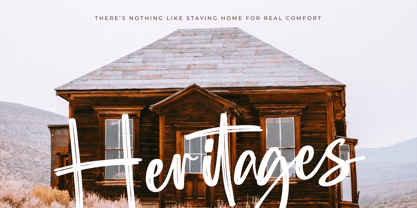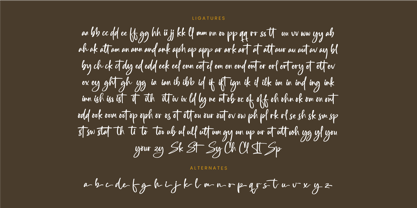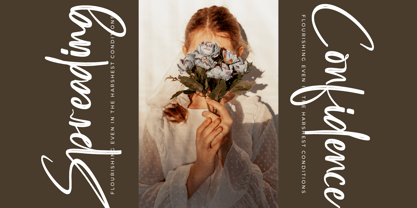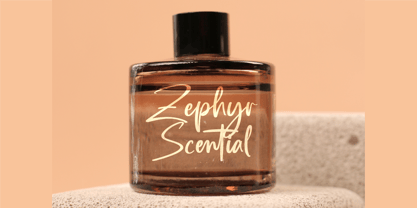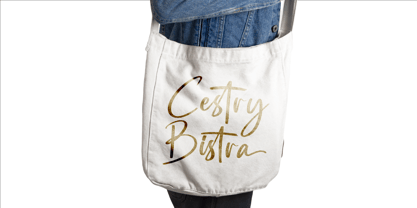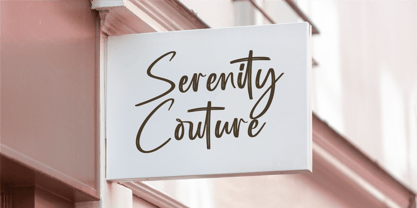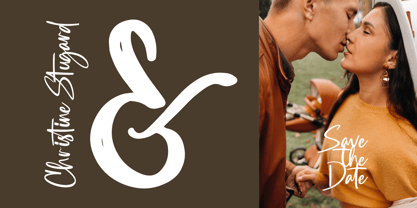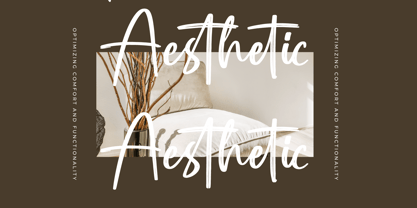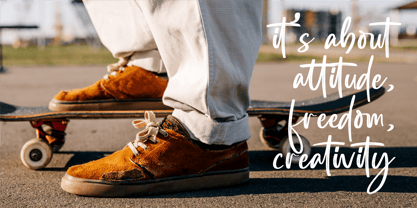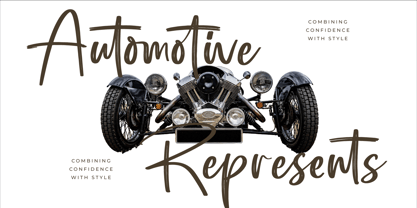
Southery
Southery - Bold Brush Font , from Stylishtype., Suitable for any projects such as: logos, branding projects, homeware designs, product packaging, mugs, quotes, posters, shopping bags, t-shirts, book covers, name card, invitation cards, greeting cards, label, photography, watermark, special events, and all your other luxury and beautiful projects that need a Luxury Script taste.